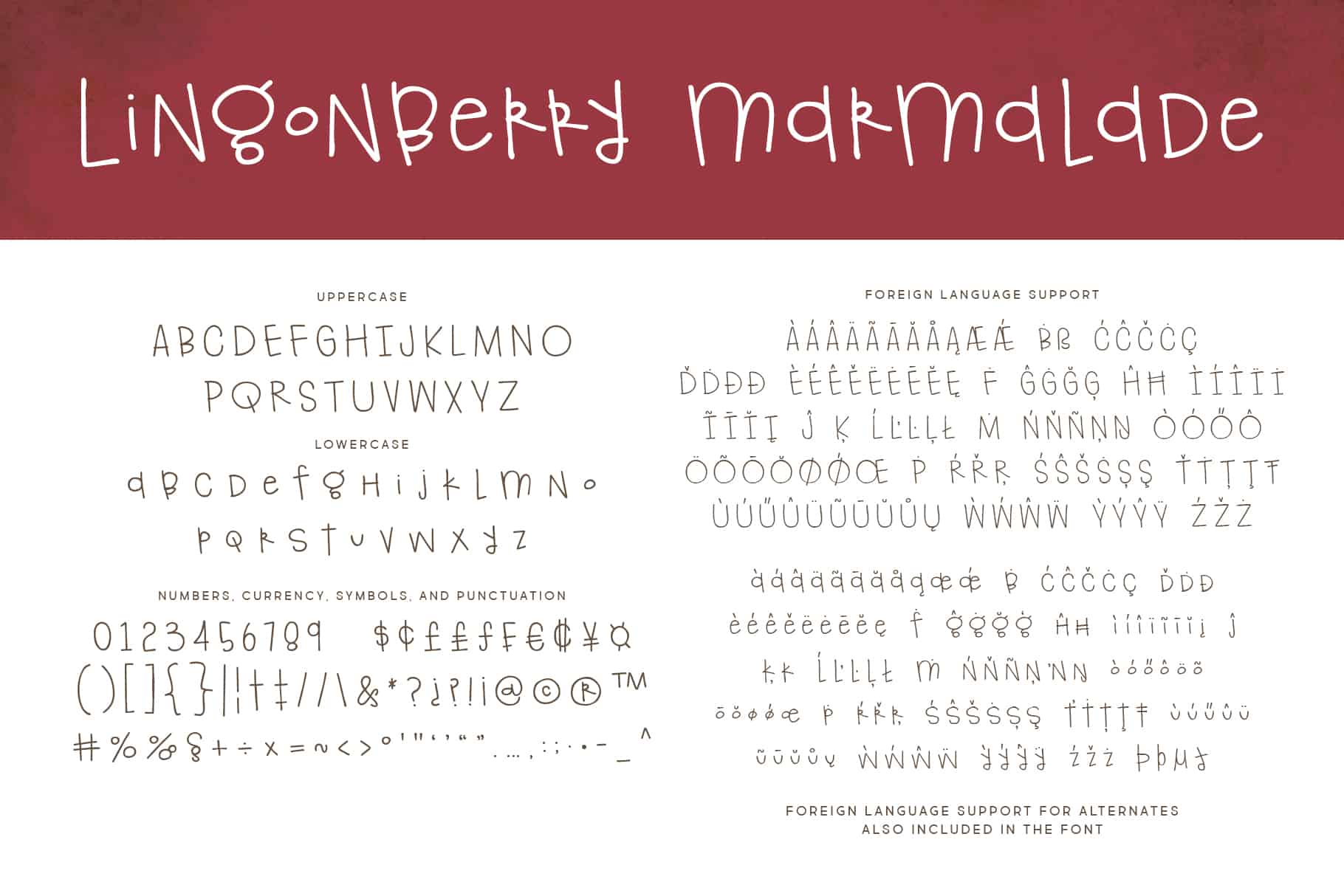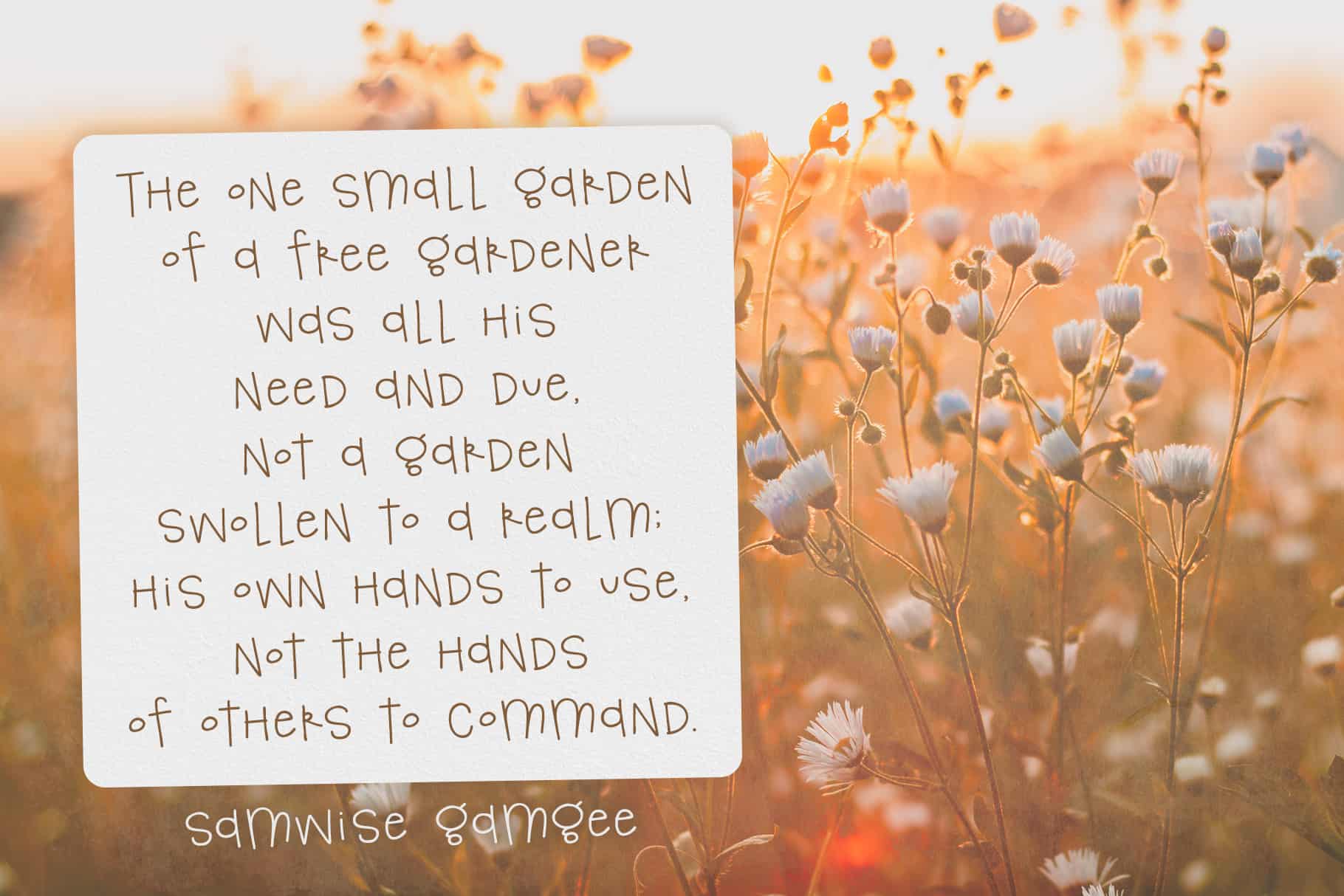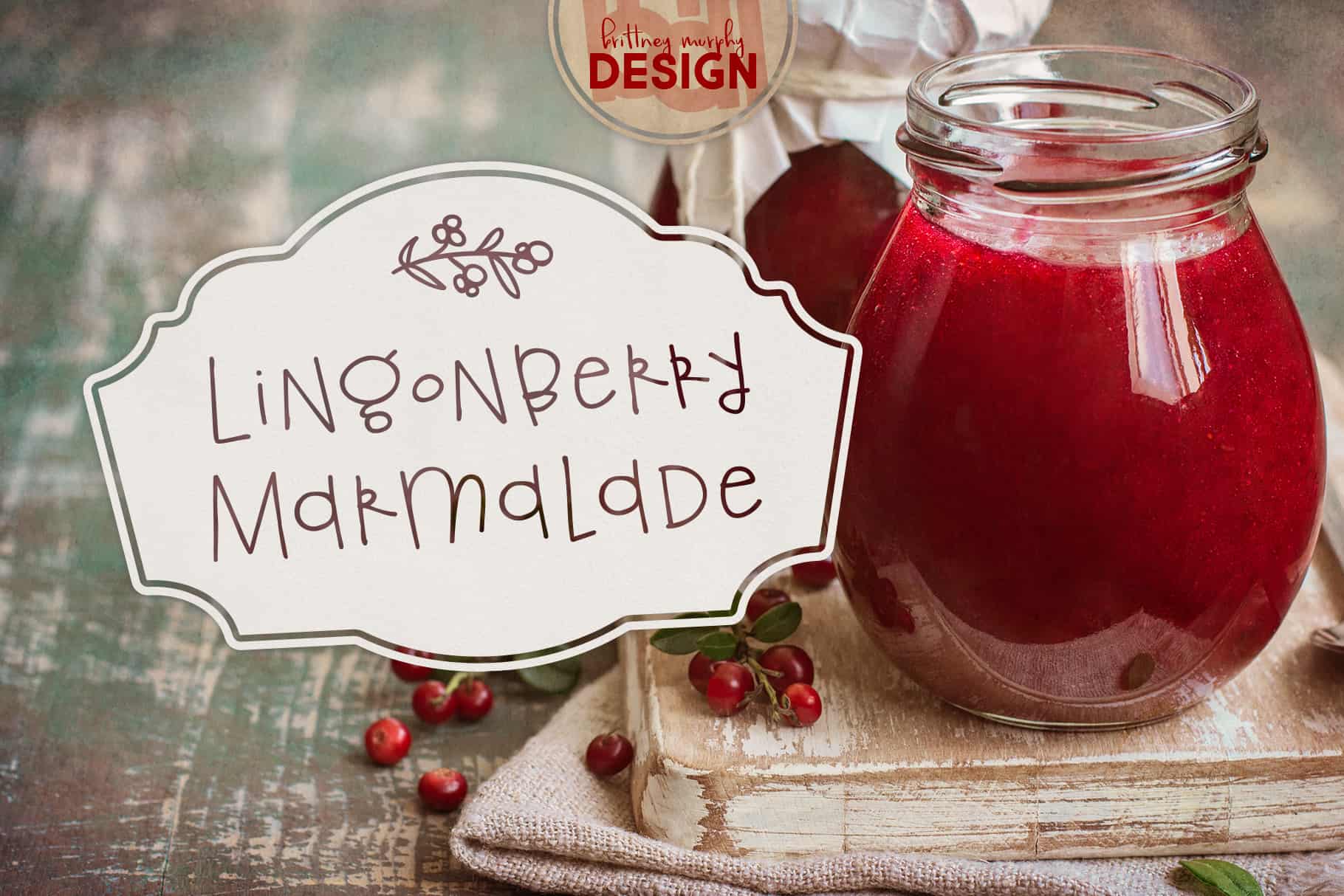
Lingonberry Marmalade
Lingonberry Marmalade Font
The Lingonberry Marmalade font is a warmhearted handwritten font created in 2020 by Brittney Murphy Design. Lingonberry Marmalade contains and supports most latin-based languages. It’s imperfect handdrawn quirks add lots of character for a homemade touch and the varying lowercase height gives a fun bounce to your text. Our Lingonberry Marmalade font is perfect for crafts, rustic decor, and fun kids projects.